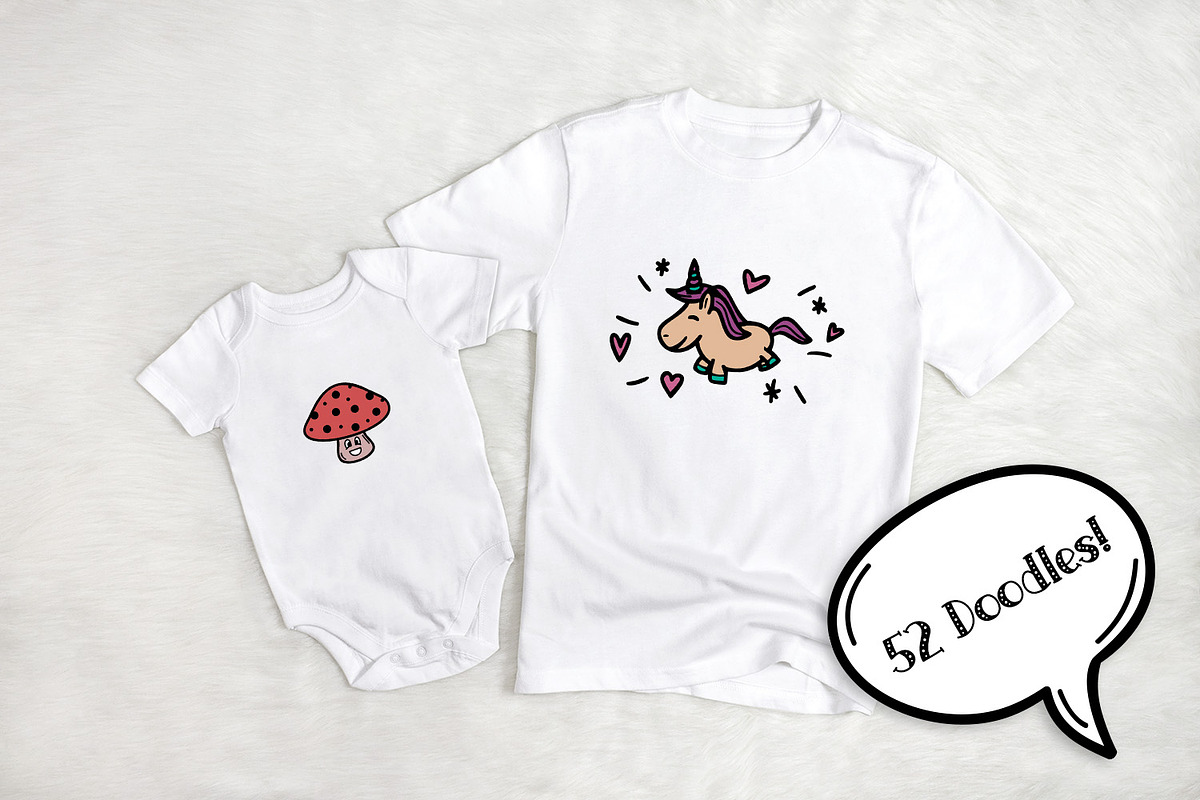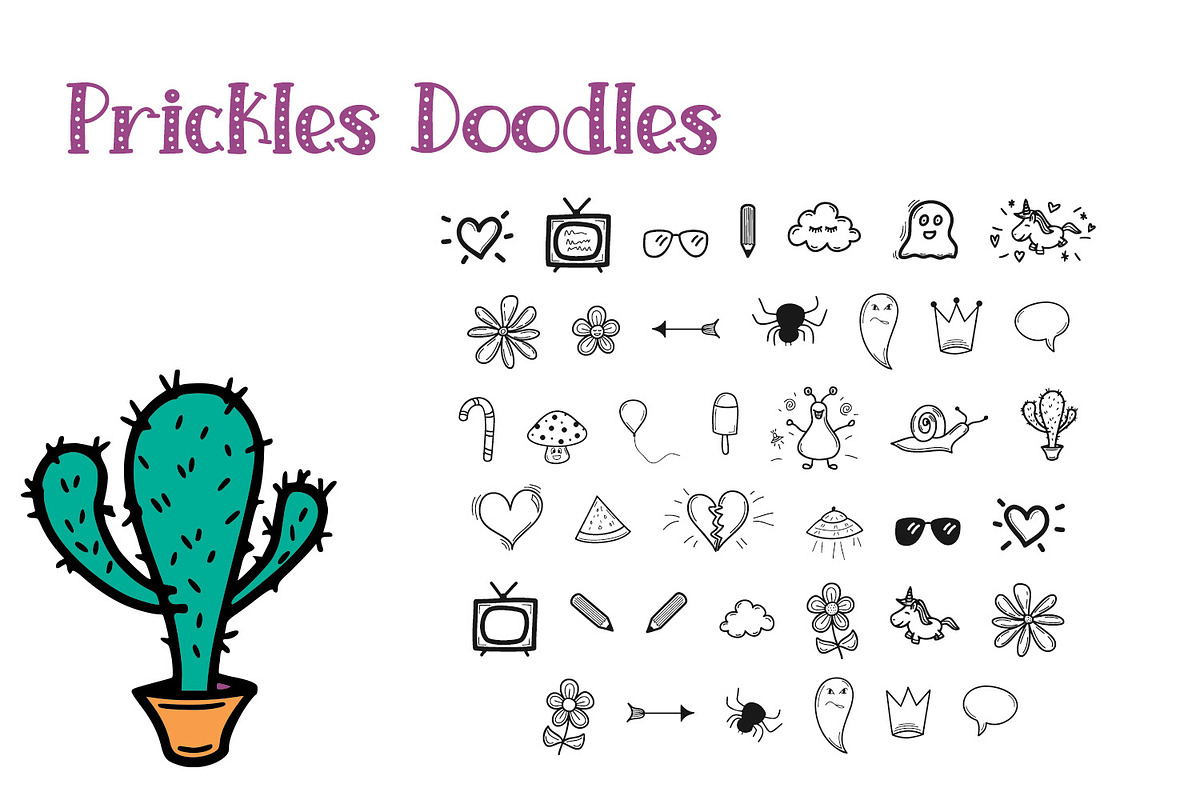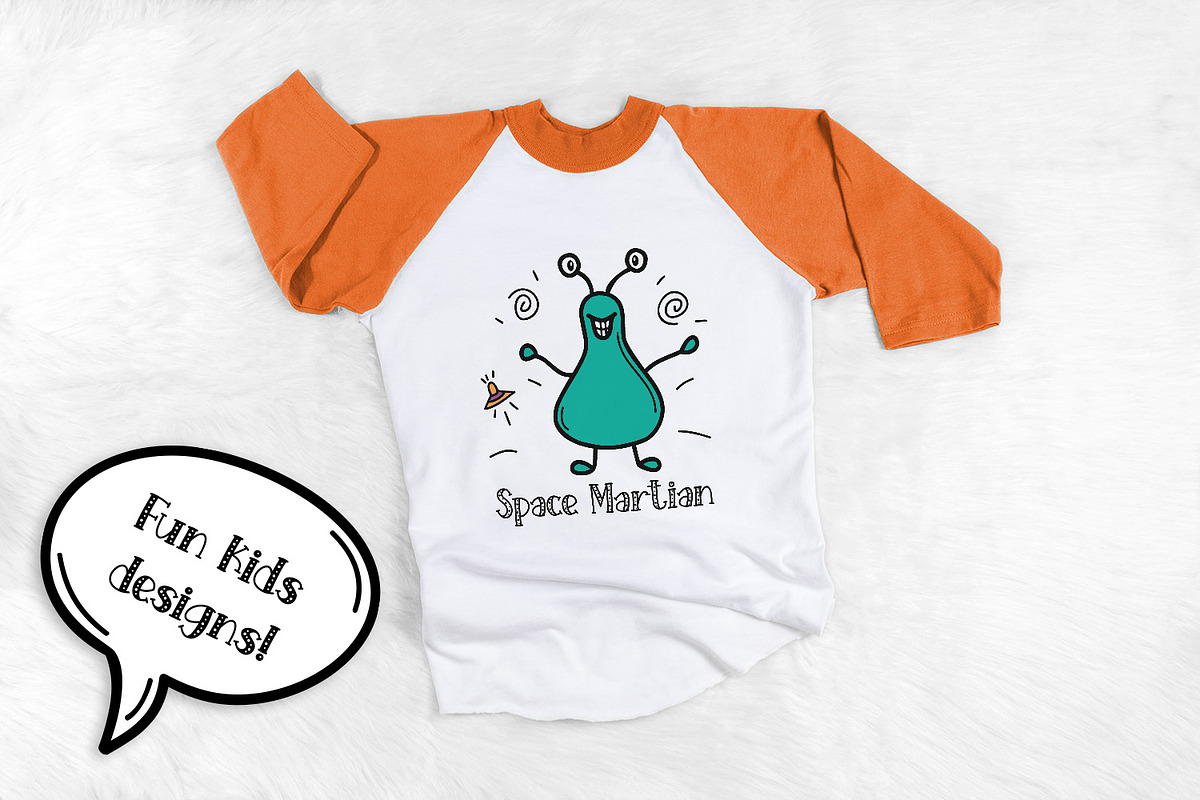
Prickles Complete Collection
Prickles Complete Collection - a fun handwritten serif font in seven styles!
Plus a bonus doodle font with 52 doodles for every occasion!